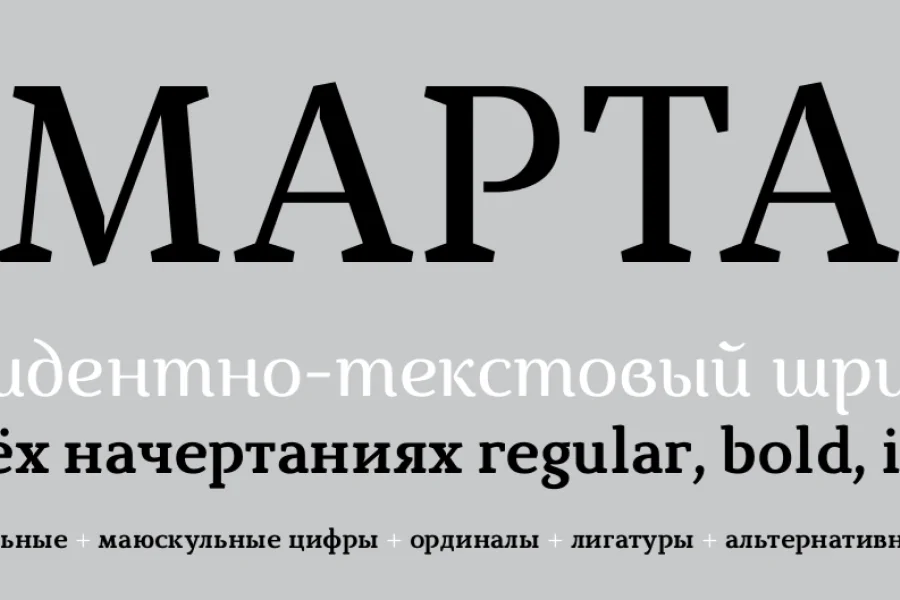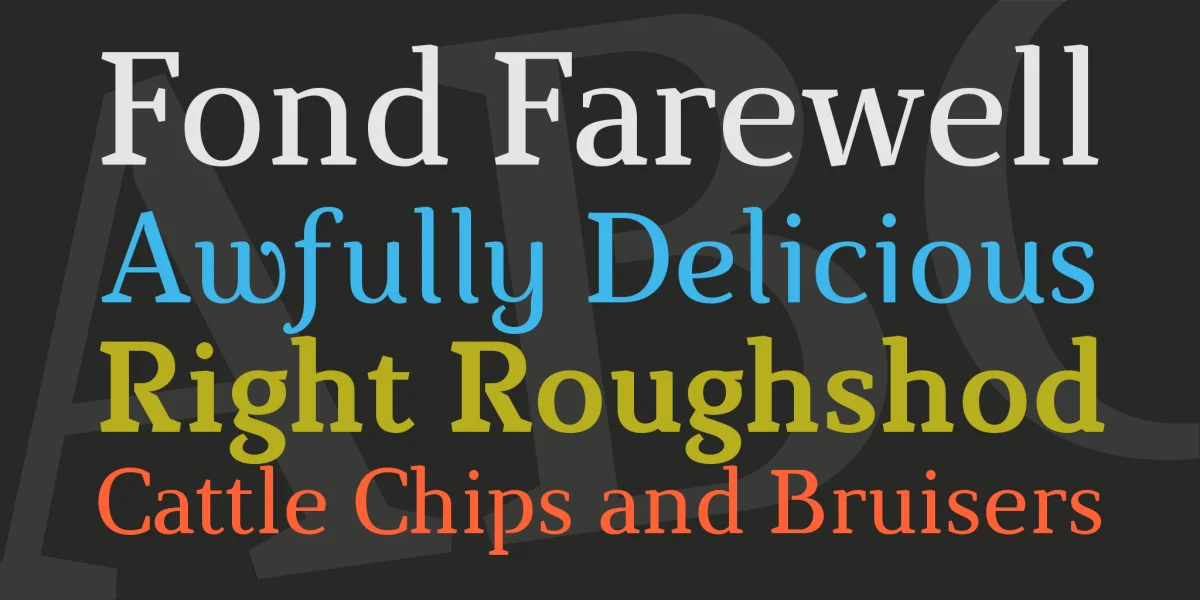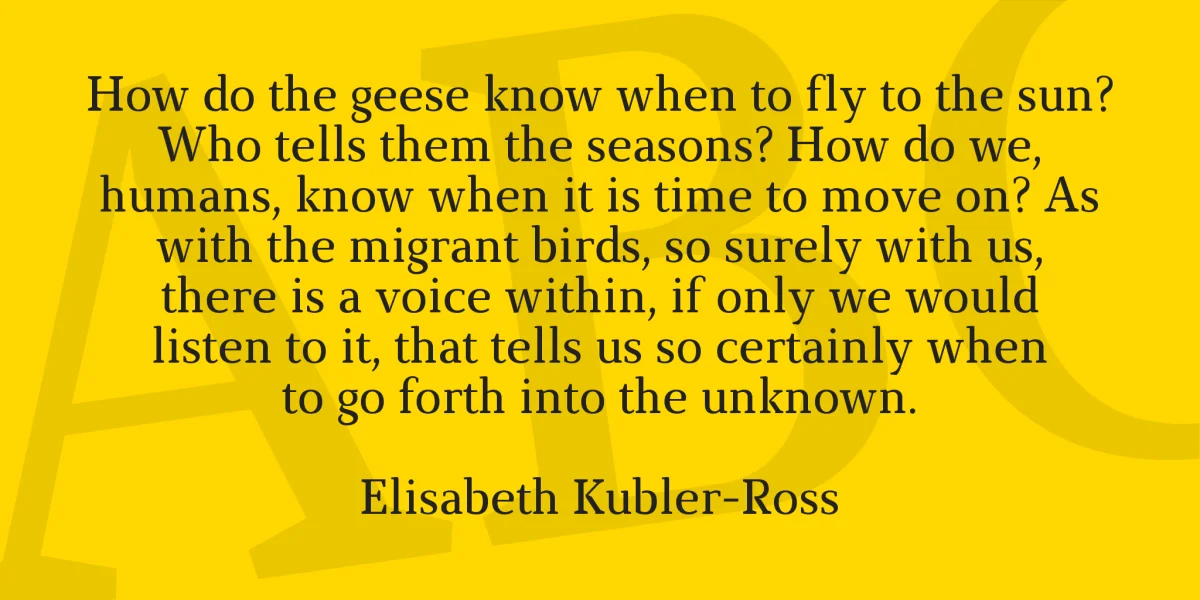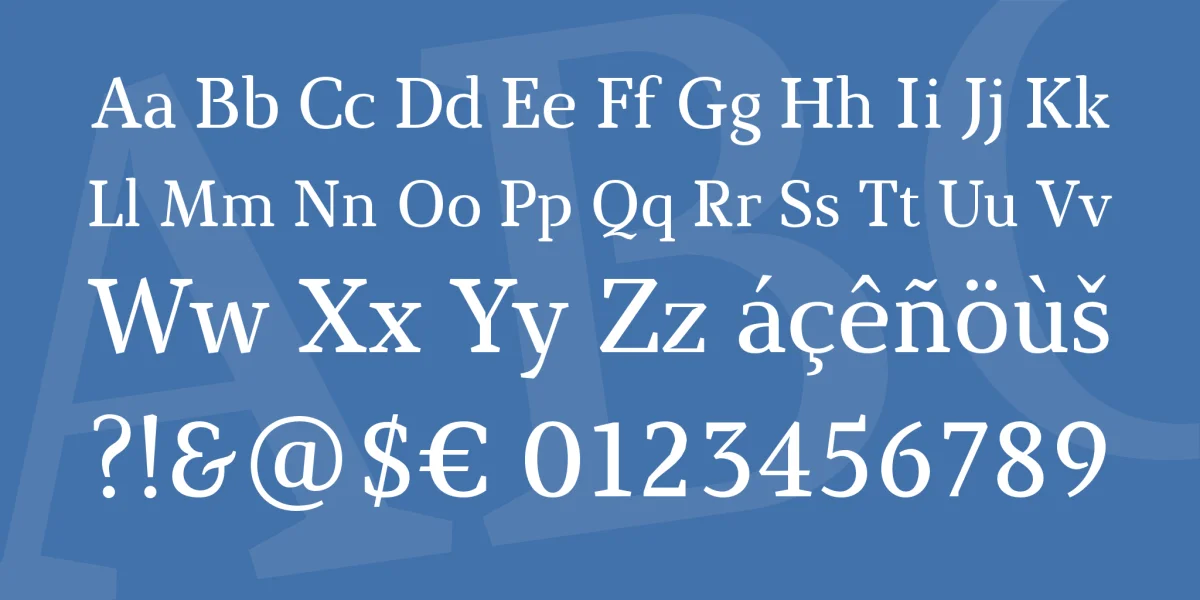
Marta. Eclectic, accidental-text font with wedge serifs. 3 inscription: normal, bold and italic vertically.
Ornamental and expressive cursive version, can use return as a separate font. Font includes the Old Calendar figures, ligatures, ordinals, and alternative forms of signs, thus extending the possibilities of typography. Extended Cyrillic and Latin. Contains over 650 glyphs.